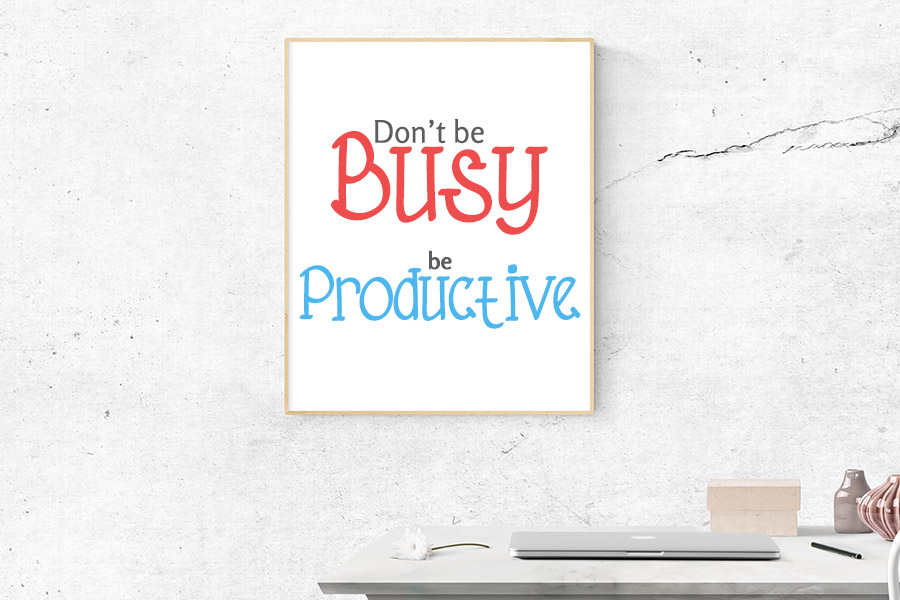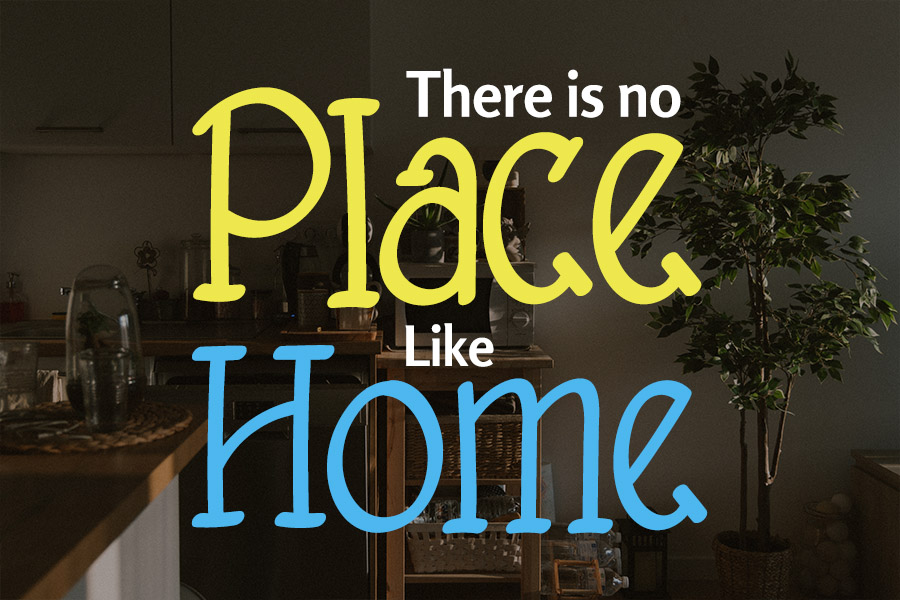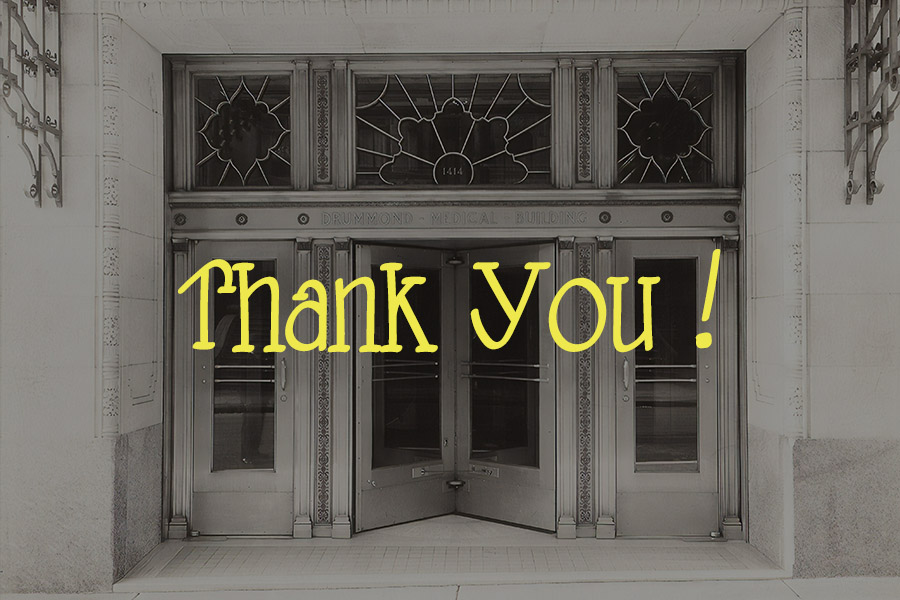
Room House Script Font
This is a cool, quirky and somewhat stylish serif font. It is defined by smooth curves and is perfect for fashion branding or editorial designs. Add it confidently to your projects, and you will love the results.